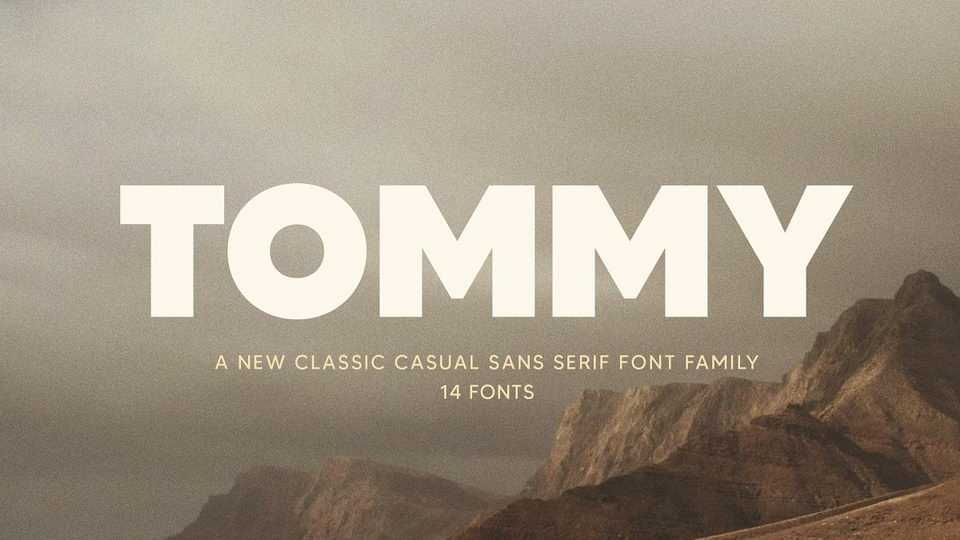
Download MADE TOMMY typeface, a new classic casual sans serif font family in 7 normal and 7 outline styles. MADE TOMMY will perfect for many project: fashion, magazines, logo, branding, photography,